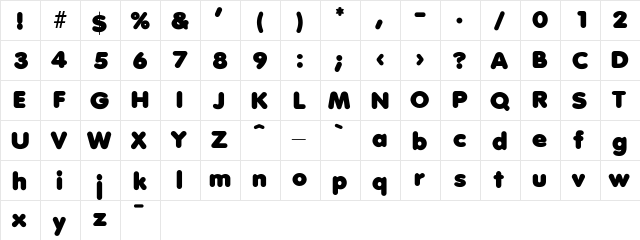
Debussy-Lengyar Regular
Design Context for Debussy-Lengyar Typeface
Debussy-Lengyar offers clean, dependable letterforms without strong stylistic allegiance, making it a practical choice for designers who need flexibility.
Pro Tip: Use Debussy-Lengyar in both headline and body roles to test its range before committing to a single application.